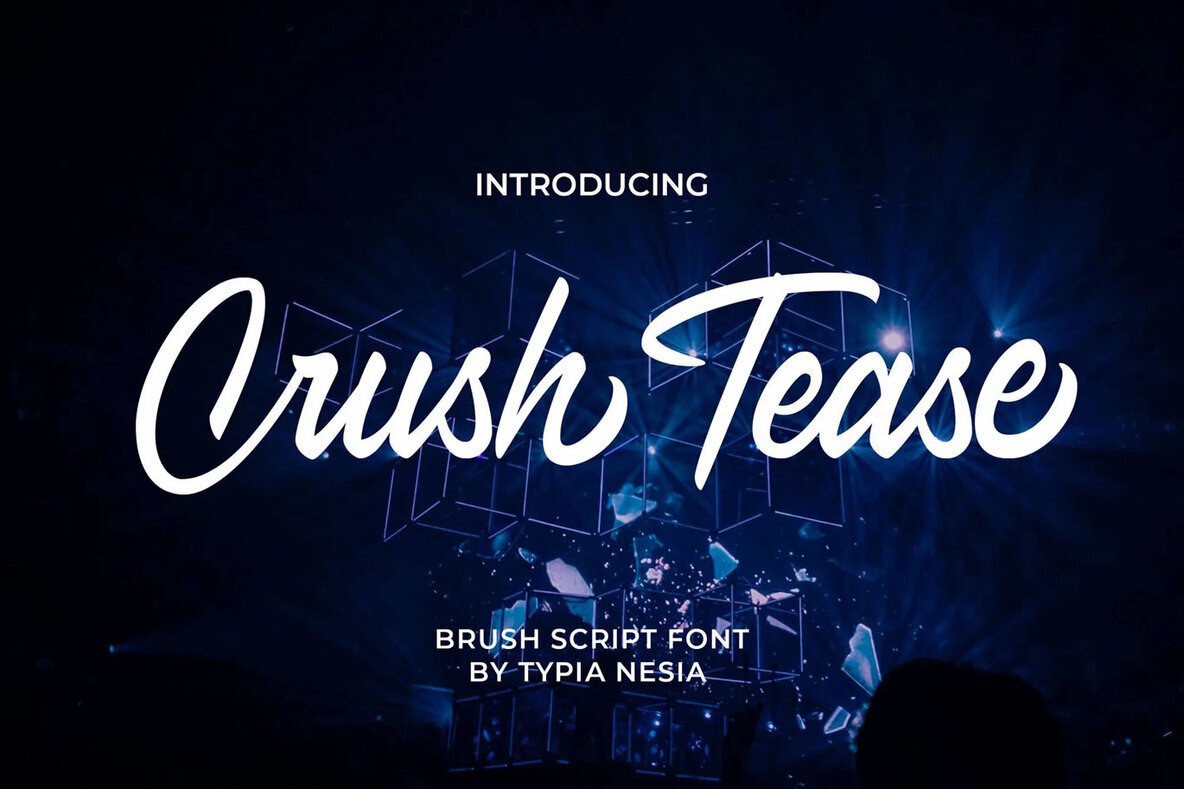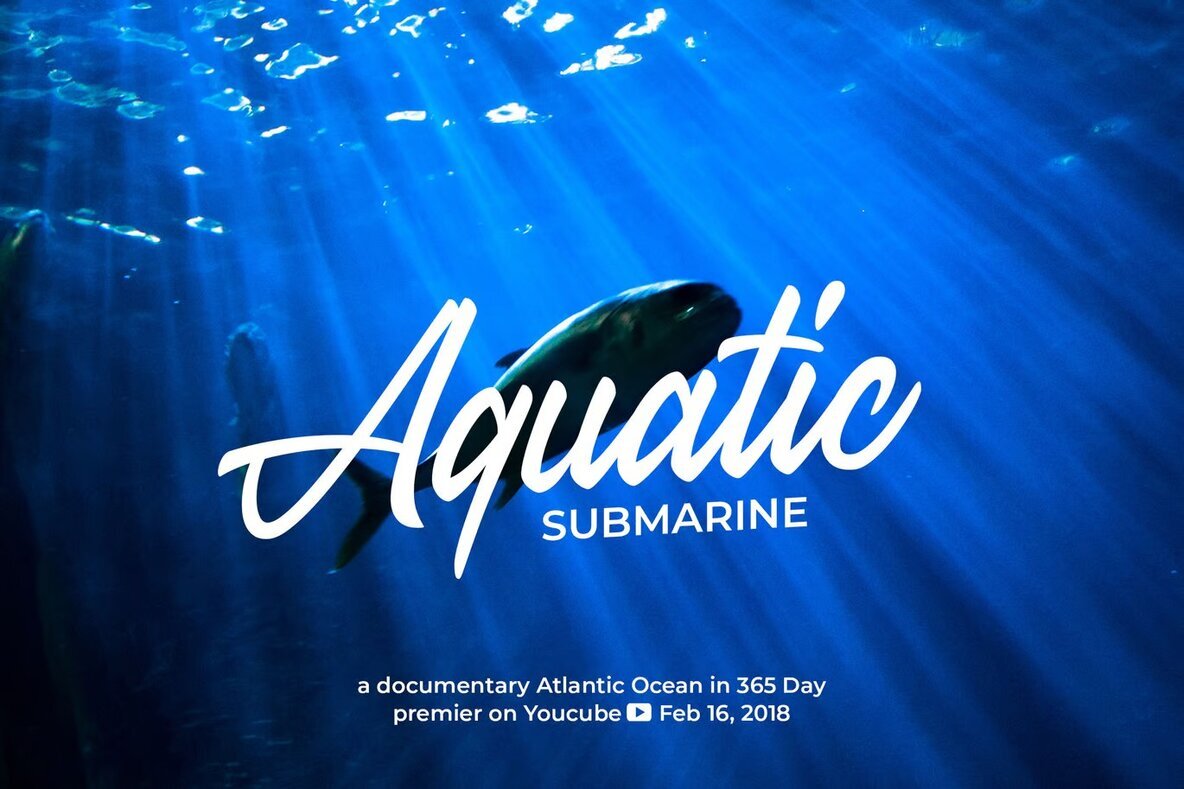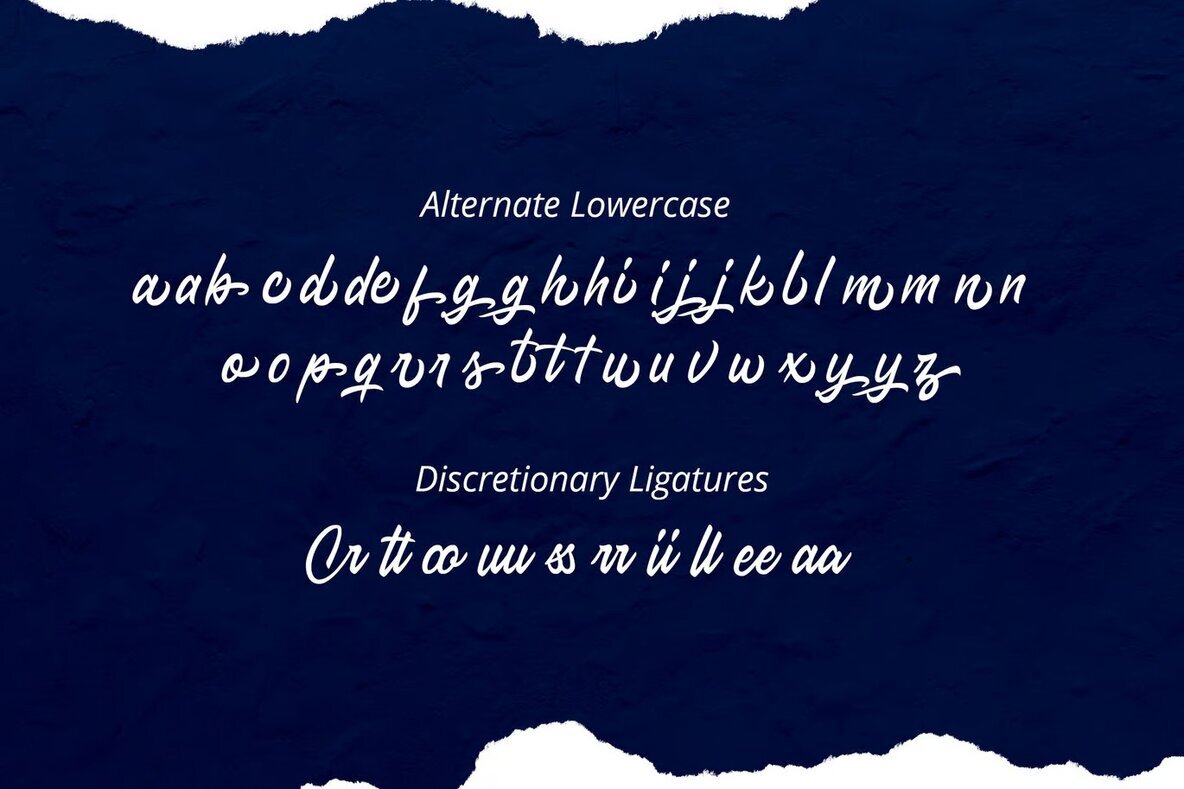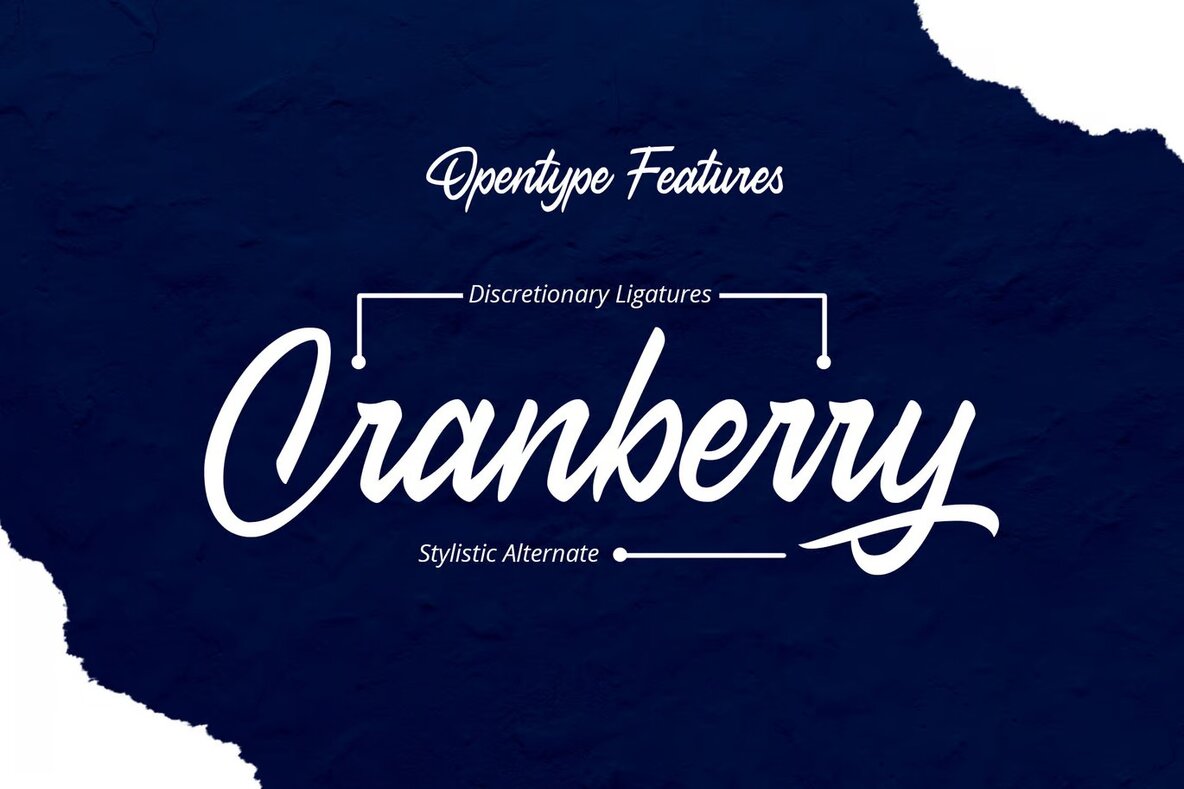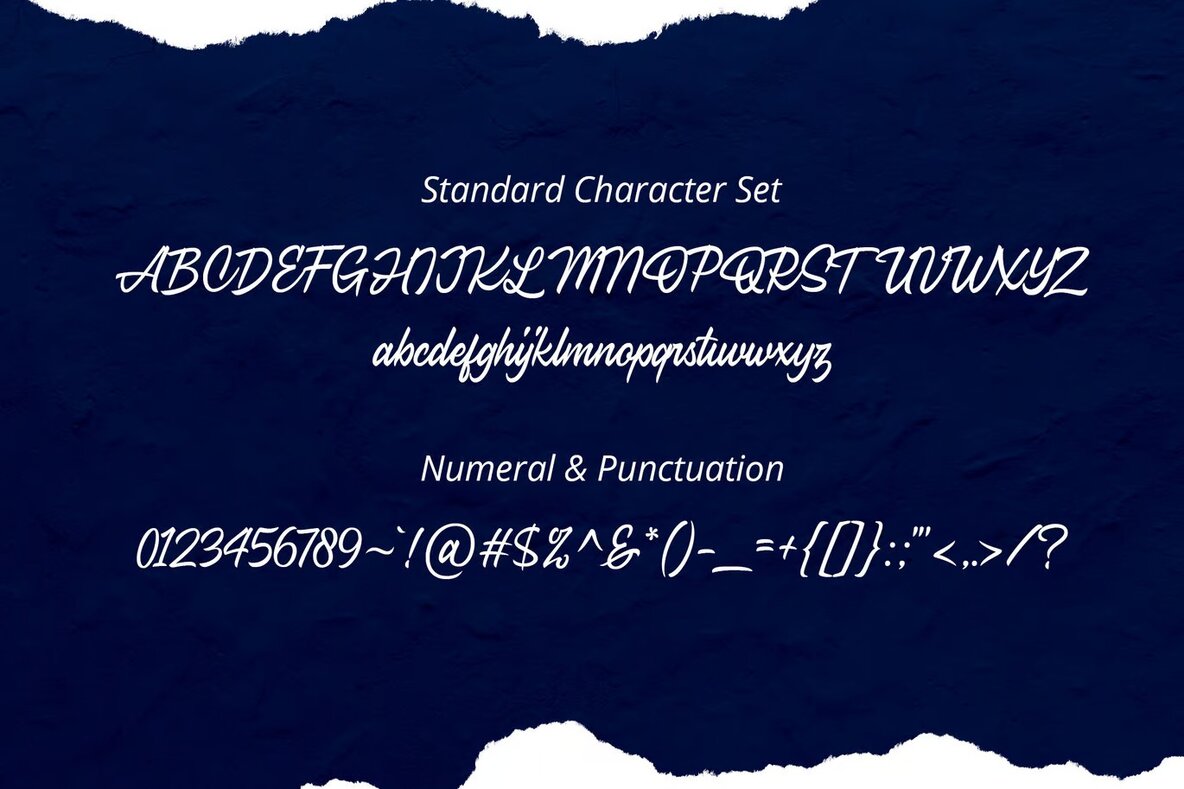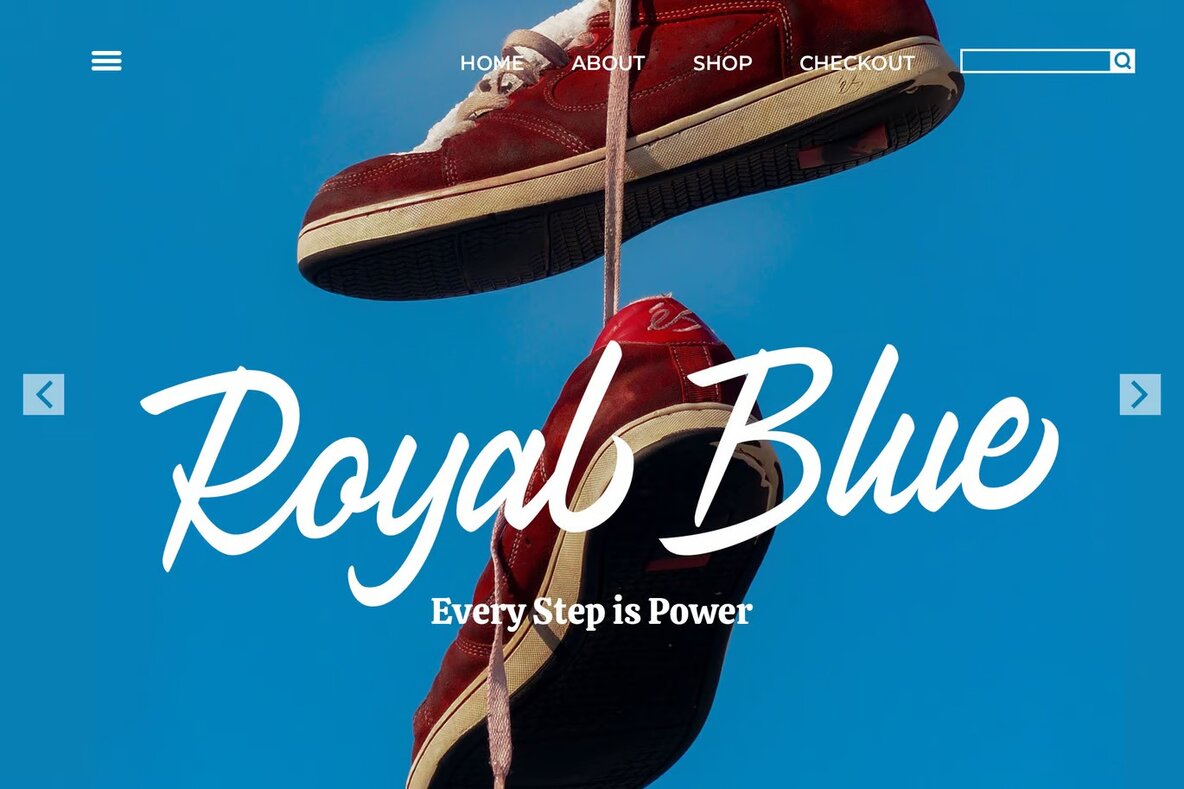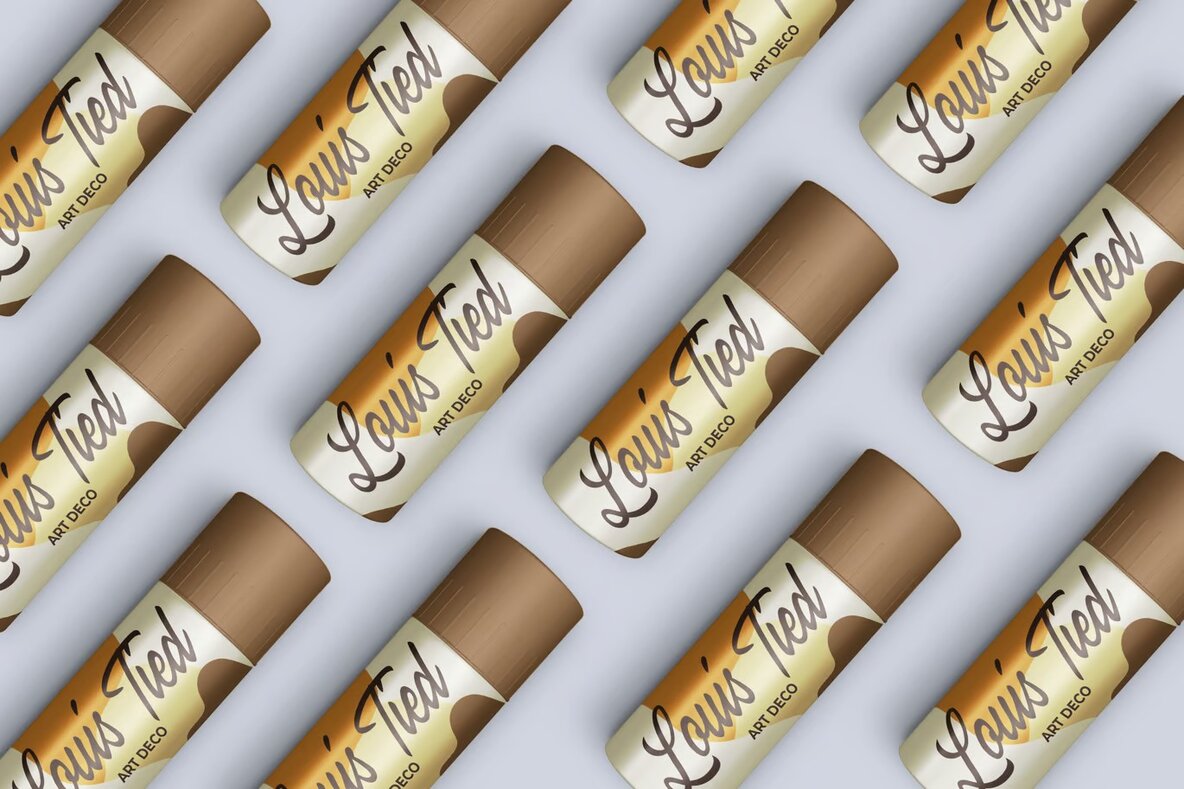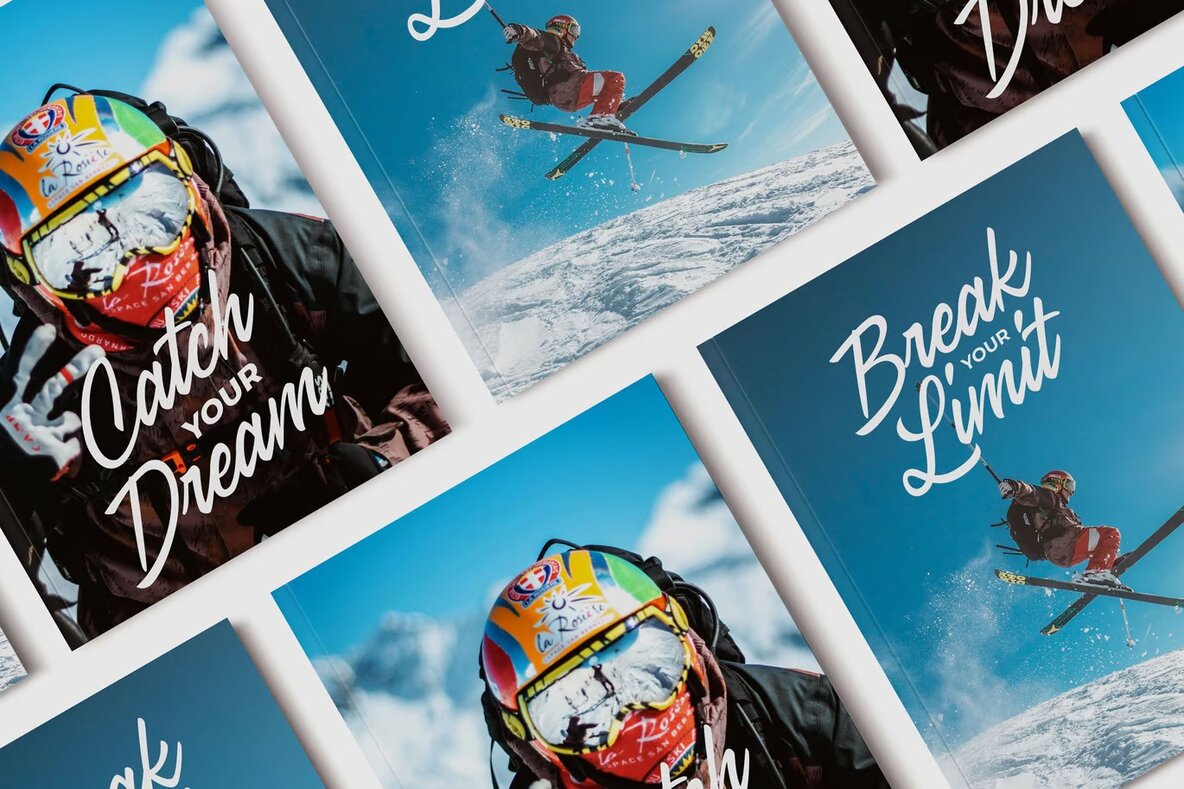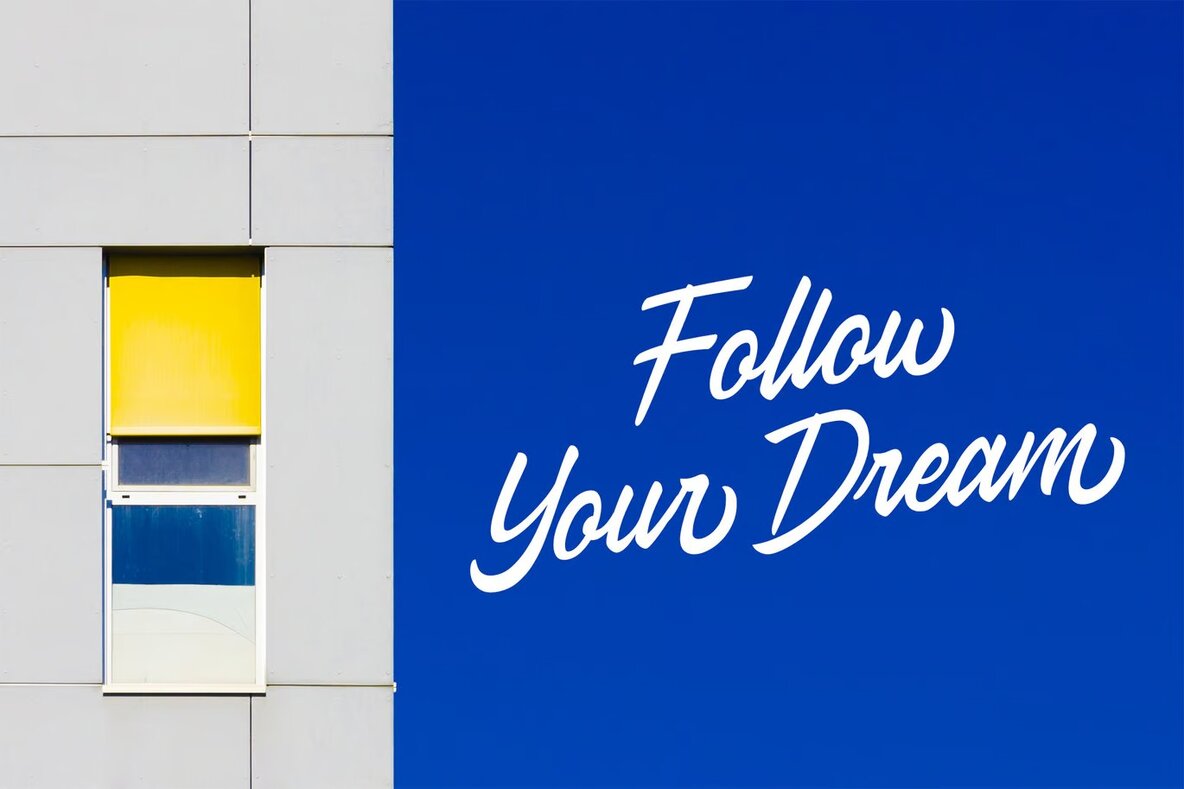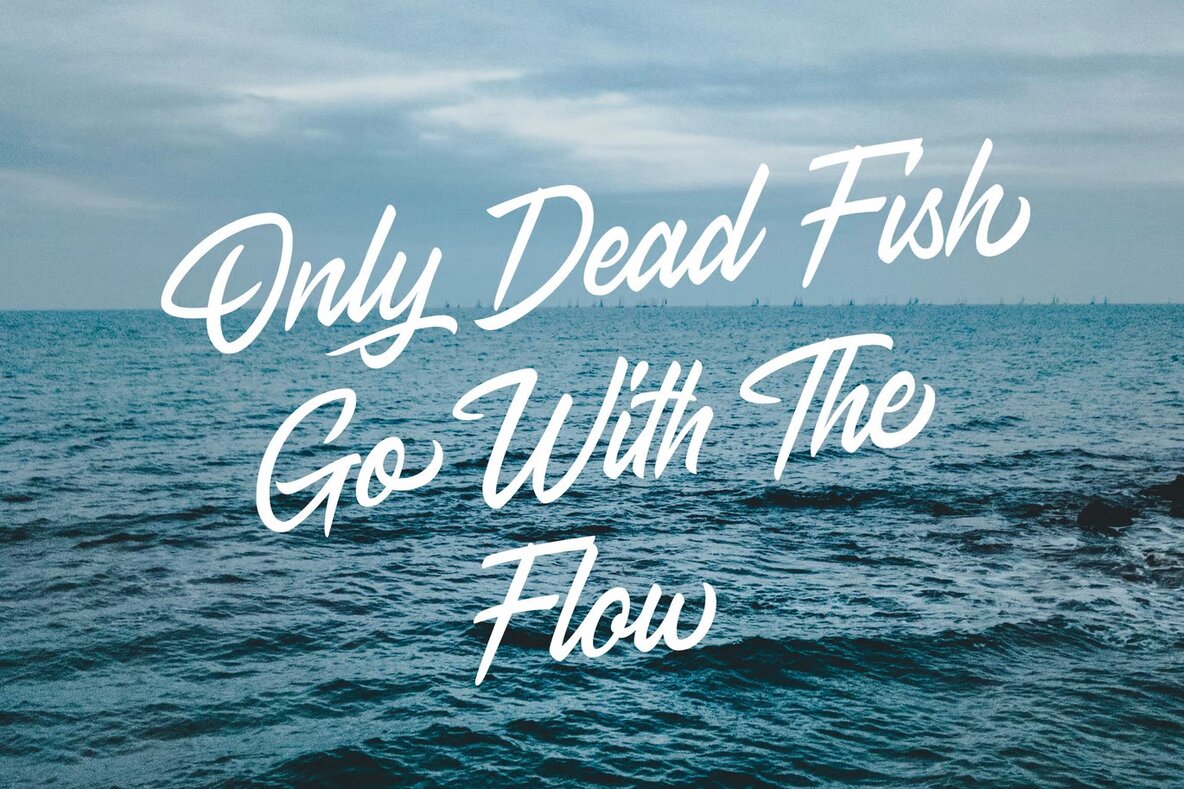
Crush Tease Font
Crush Tease Regular
Crush Tease is a clean and bold script display font, perfect for designers seeking a versatile calligraphy and lettering option. Its stylish design is ideal for a wide variety of projects, including logos, branding, modern advertising, poster quotes, book covers, editorial designs, websites, blogs, cards, custom merchandise like mugs and pillows, t-shirts, and more.
This font offers a comprehensive set of features, including upper and lowercase standard characters, punctuation, and numerals. It also includes OpenType features such as standard ligatures, stylistic alternates, swashes, and stylistic sets. Additionally, Crush Tease supports a range of multilingual characters, catering to diverse design needs.